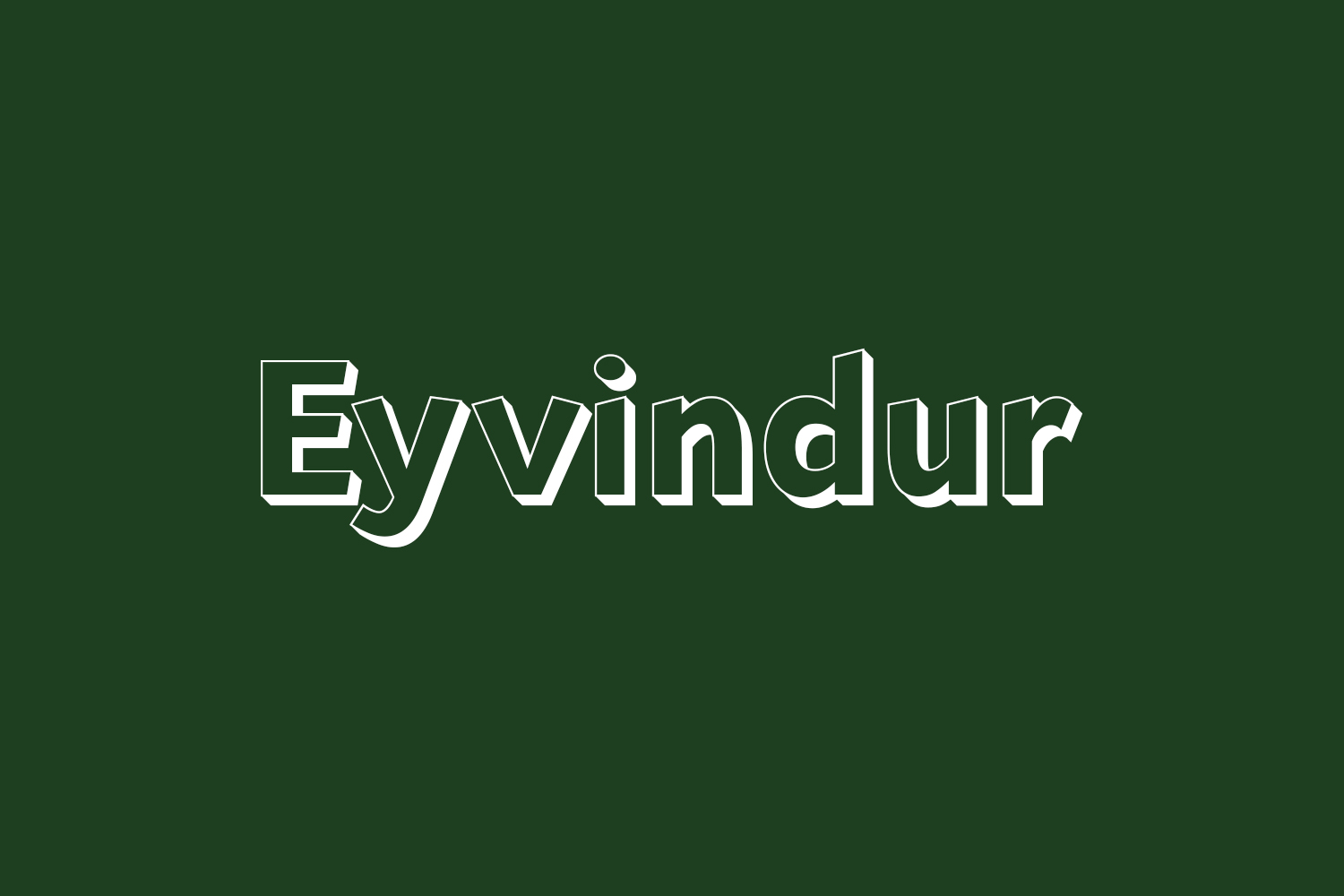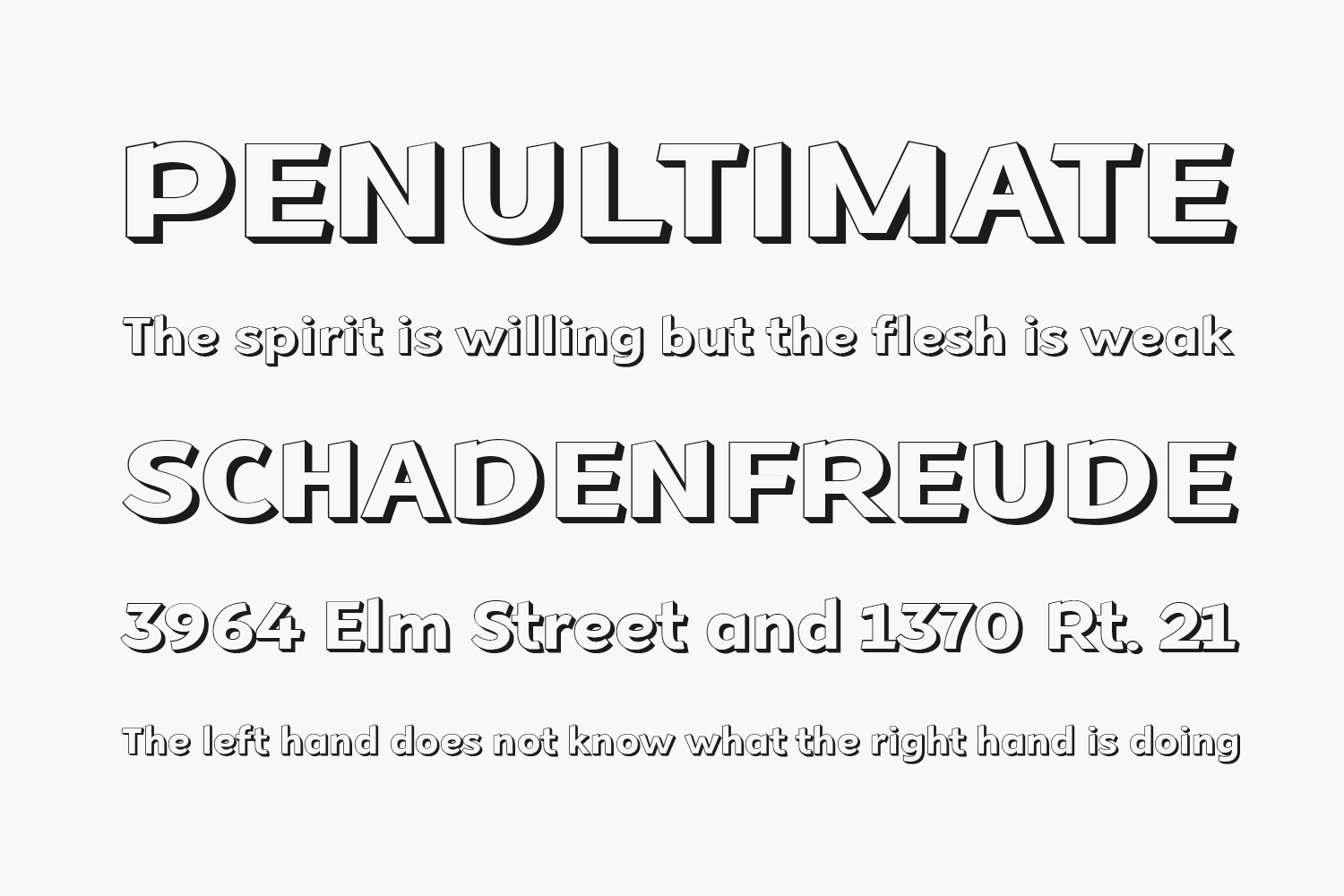
Eyvindur Free Font is a super stylish 3d display typeface. Perfect for creating bold headlines, logos, posters and so much more. Eyvindur Free Font was designed by Misti’s Fonts and is free for personal use only. Please purchase the full version for commercial use.